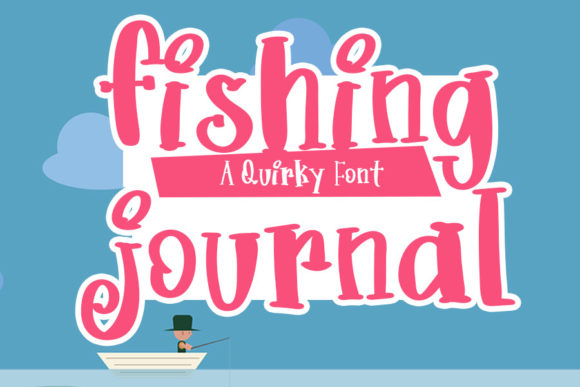
Step into the realm of creativity with Fishing Journal Font, a unique display font that will make your designs dance with delight! Its charming characters possess a playful energy, as if they're pirouette across the baseline, ready to transform your ideas into something extraordinary.
Unleash your artistic spirit and let this font guide you towards innovative horizons. Fishing Journal Font is the perfect companion for logos that demand a touch of personality, branding seeking an unforgettable identity, and headlines that crave attention. It's a font that speaks volumes, even in its silence.
With Fishing Journal Font, you'll discover a font that isn't just stylish, but also versatile. Its strokes, bold and graceful, lend themselves beautifully to a variety of design projects, from eye-popping posters to alluring social media graphics. This font adapts seamlessly, conforming to your creative vision, whether it's playful, elegant, or something in between.
Embrace the magic of Fishing Journal Font and watch as your designs transform into something extraordinary. This font is an investment in your creativity, a tool that will help you create designs that resonate, designs that capactivate eyeballs, and designs that leave a lasting impression.
Don't let ordinary fonts hold you back. Embrace the quirkiness, the fun, the sheer brilliance of Fishing Journal Font. Its charming characters and playful energy will infuse your designs with a new kind of life, a life that's bound to capactivate.